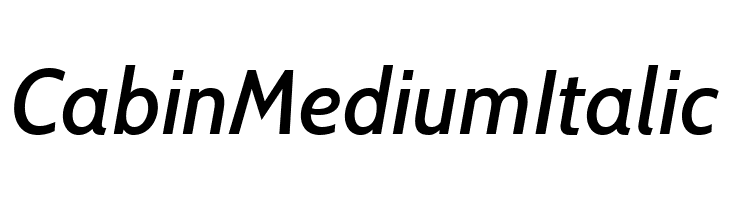
A modern, rounded sans-serif font with a friendly and clean appearance.
A modern, rounded sans-serif font with a friendly and approachable style.
A modern sans-serif font with an italic slant, offering clarity and style.